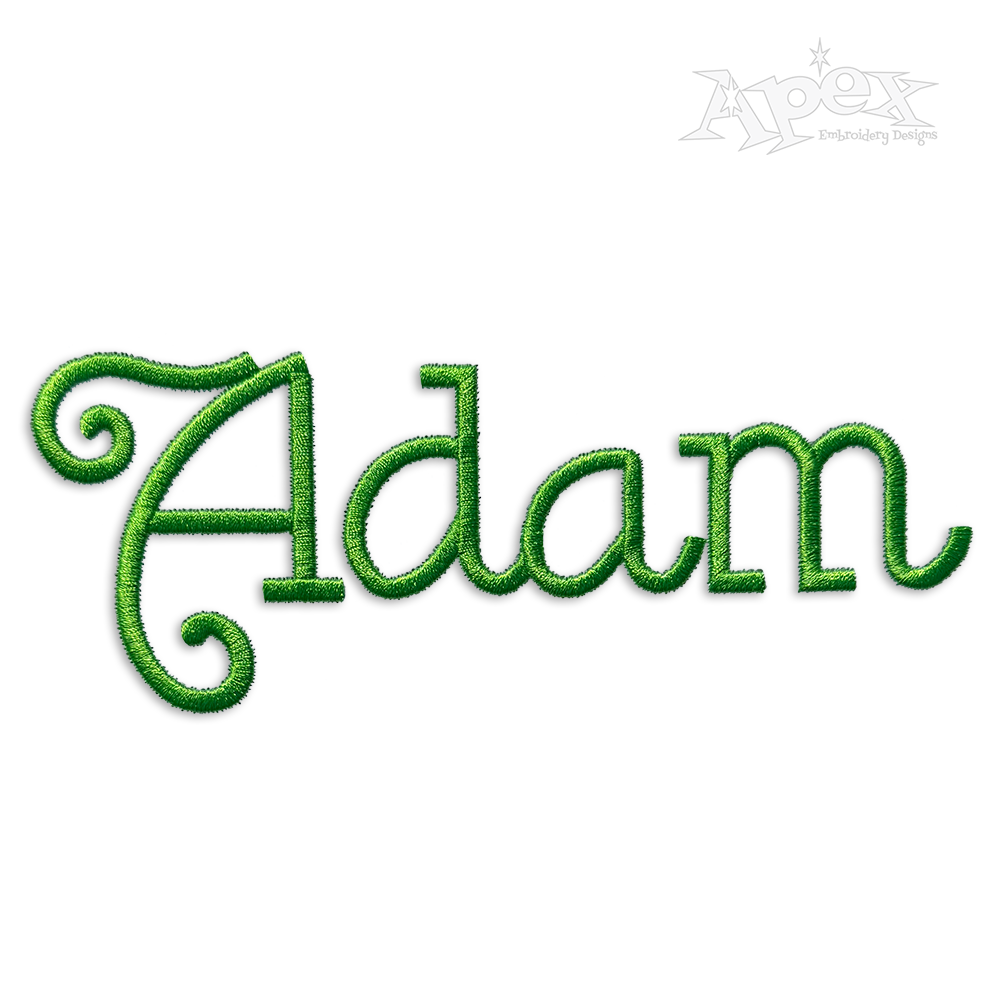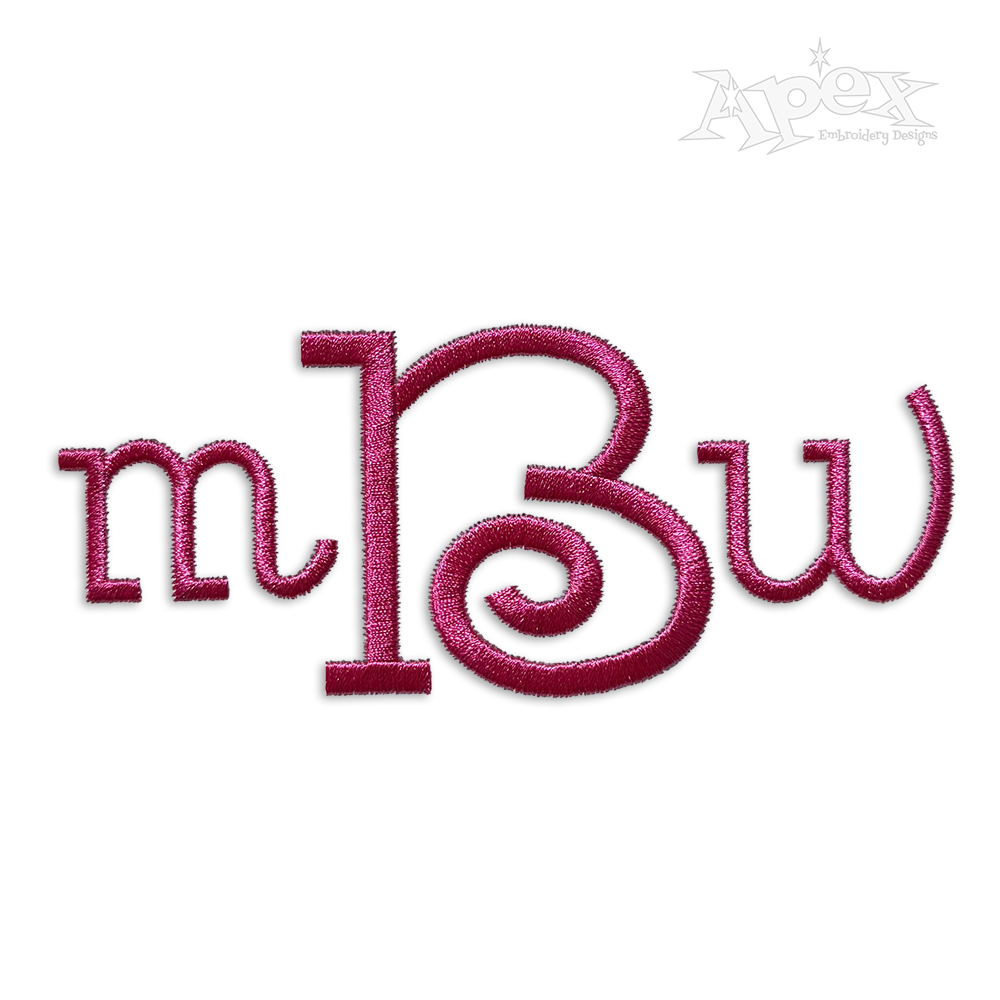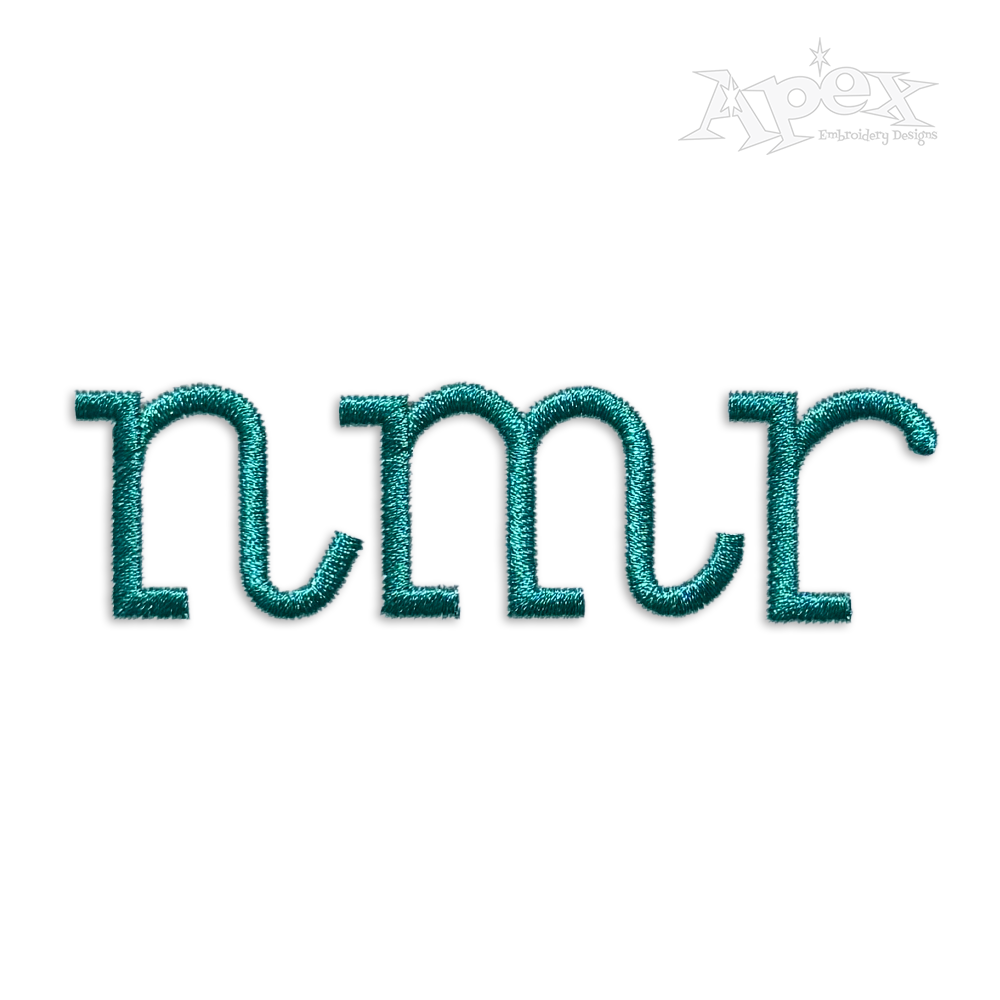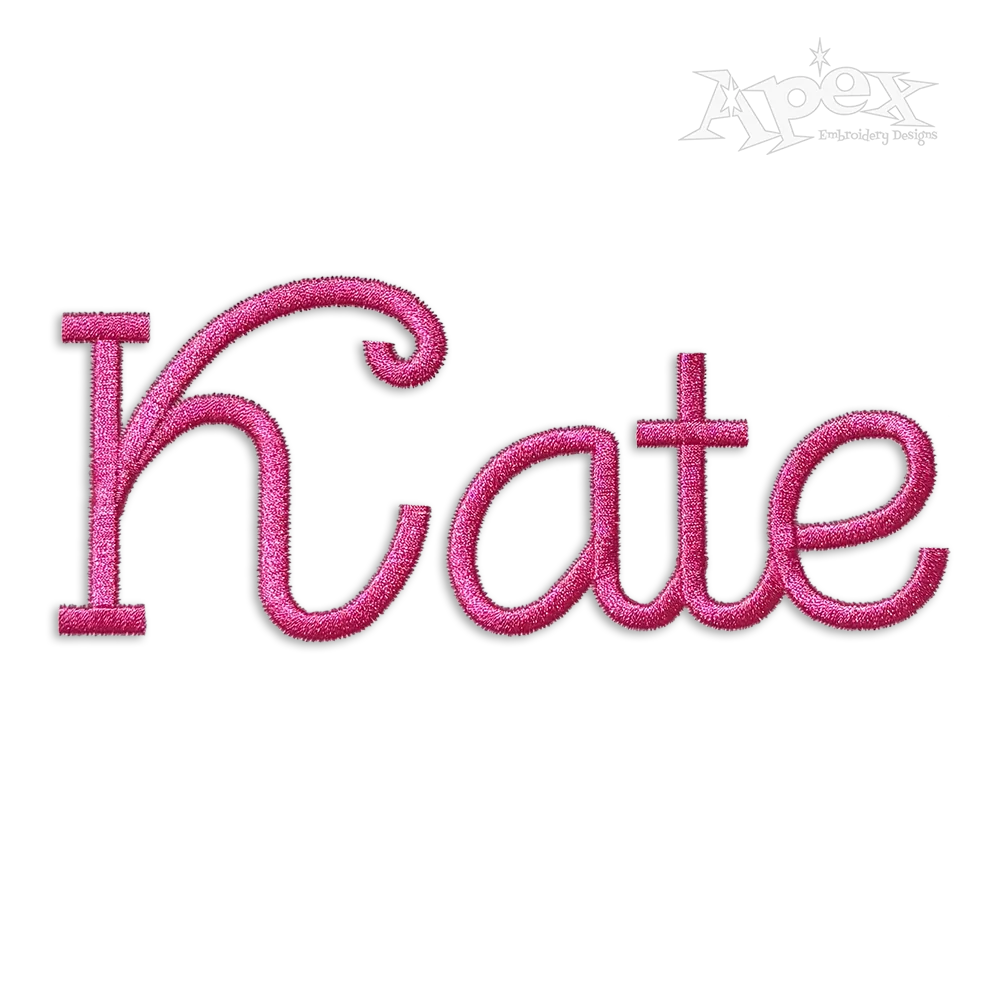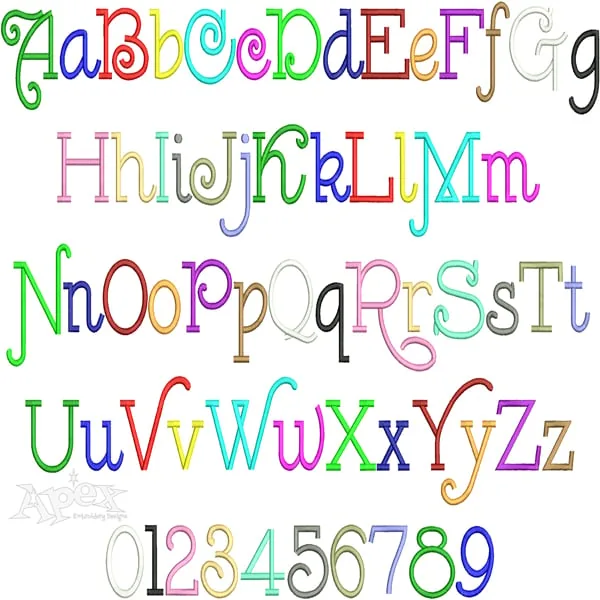
Savannah Embroidery Font
Steeped in the breezy romance of veranda afternoons and antebellum wrought-iron flourishes, the Savannah Embroidery Font brings effortless Southern charm into every pass of the needle. Digitized with a reverence for timeless monogram traditions, this alphabet captures the spirited balance between stately presence and whimsical flourish. With its signature curling serifs and flowing swashes, each character feels like a treasured heirloom waiting to unfold—evoking sun-dappled coastal gardens, crisp white porches, and the tactile joy of lustrous thread sinking gracefully into fine natural fibers.
The Savannah alphabet has been meticulously digitized in three well-proportioned heights, giving you complete creative flexibility across small bespoke accents and sweeping statement monograms:
- 2-Inch Alphabet: Crafted specifically for delicate, refined applications where compact elegance is paramount.
- 3-Inch Alphabet: The quintessential monogram size, striking an impeccable balance for accessories, personal apparel, and table accents.
- 4-Inch Alphabet: A grand statement scale featuring luscious, expansive satin columns designed to command attention on luxury linens and home decor.
Project Ideas for Savannah Embroidery Font
Infused with warm, hospitable character, this font elevates everyday textiles into curated heirlooms. Consider these artisan project applications:
- Heirloom Table Linens: Frame pure Irish linen cocktail napkins and formal dinner runners with a single, swirling initial for gracious dinner parties.
- Bridal Trousseau & Wedding Robes: Stitch personalized monograms onto silky bridal party robes, honeymoon cosmetic cases, and ring bearer pillows.
- Bespoke Resort Wear: Accentuate breezy linen cover-ups, chambray button-downs, and sun-washed canvas boat totes with playful, personalized flair.
- Luxury Bedding & Guest Linens: Embroider classic three-letter monograms on crisp percale pillowcases, duvet covers, and fluffy plush bath sheets.
- Cherished Baby Gifts: Personalize soft pima cotton blankets, heirloom nursery quilts, and milestone diaper bags for an unforgettable personalized keepsake.
The Savannah letterforms possess an intrinsic lyrical movement that lends itself beautifully to thoughtful, tailored placements:
- Corner Diagonals: Set your monogram 1.5 to 2.5 inches along the diagonal corner of napkins, pocket squares, or throw blankets for an understated, classic Southern drape.
- Center Chest & Pocket Headers: Position the 2-inch or 3-inch letters precisely 7 to 9 inches down from the shoulder seam, or squarely floating 0.5 inches above a shirt pocket.
- Cuffs & Collars: The clean, controlled width of the 2-inch font stitches cleanly on tailored cuffs, robe lapels, or collar tips.
- Centered Cushion Fields: Command the visual center of standard throw pillows and lumbar shams using the magnificent 4-inch size as a bold standalone monogram.
Savannah Craft & Letterform Details
Digitizing a font with pronounced decorative curls requires an exacting touch to prevent puckering, bunching, or uneven thread tension. In crafting the Savannah Embroidery Font, every single curl, loop, and spine was engineered with customized stitch pathing to ensure continuous, fluid satin runs. Rather than relying on automated fills, we manually plotted every direction angle to guarantee that natural light cascades across the satin stitch columns like liquid silk.
Beneath the surface, Savannah features an artisan-grade underlay foundation. Carefully sequenced edge-walk and zigzag underlay stitches stabilize your fabric prior to topstitch coverage, ensuring crisp column borders that never sink into waffle weaves, terry cloth, or soft fleece. The playful curls are designed with gentle taper points so the thread lays effortlessly flat, preserving clean letter legibility while imparting that coveted boutique finish.